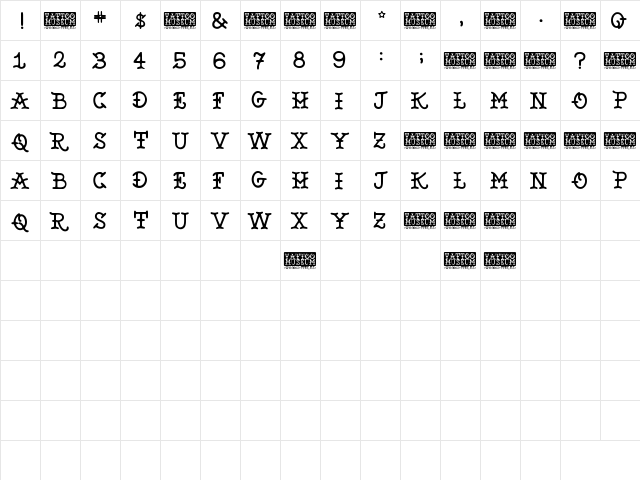
Tattoo Museum Regular
| Designer | Woodcutter Manero |
Design Context for Tattoo Museum Typeface
Tattoo Museum is a composed and adaptable typeface that performs quietly and consistently across a wide range of design contexts.